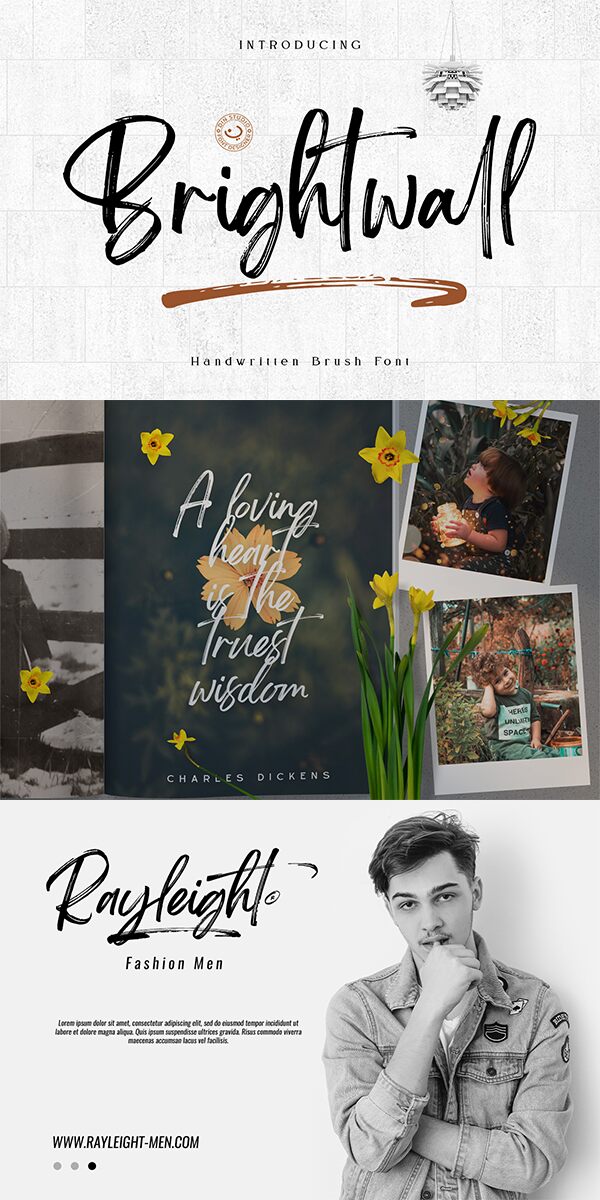
Brightwall font by Din Studio is a brush condensed font combining an energetic, casual style with handwritten and textured letters. Its expressive nature gives all the words a personal touch that cannot be overlooked. The slight rugged aspect of the characters contributes to the eye-catching visual element that is simultaneously friendly.
Features include:
Ligatures
Swashes